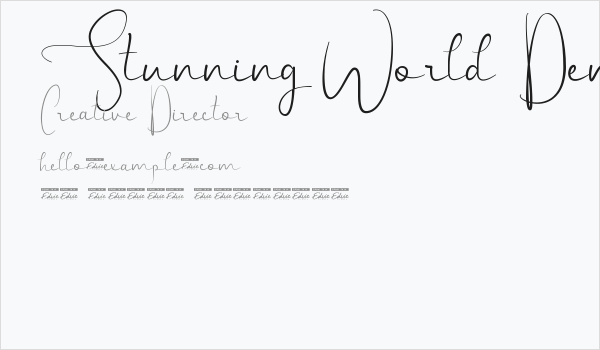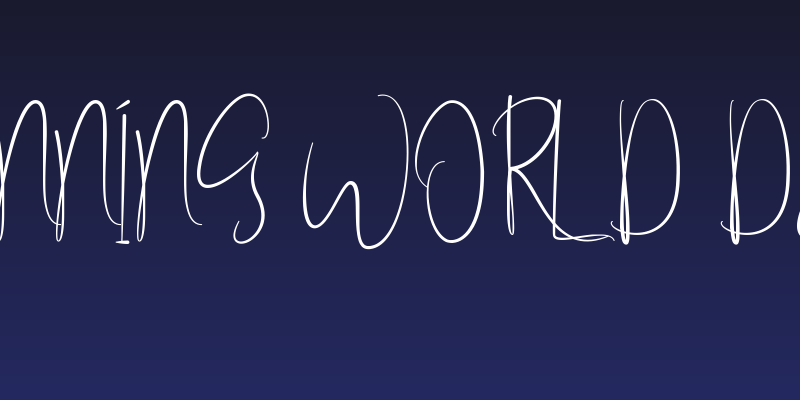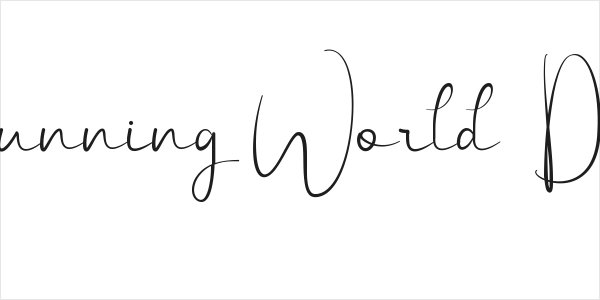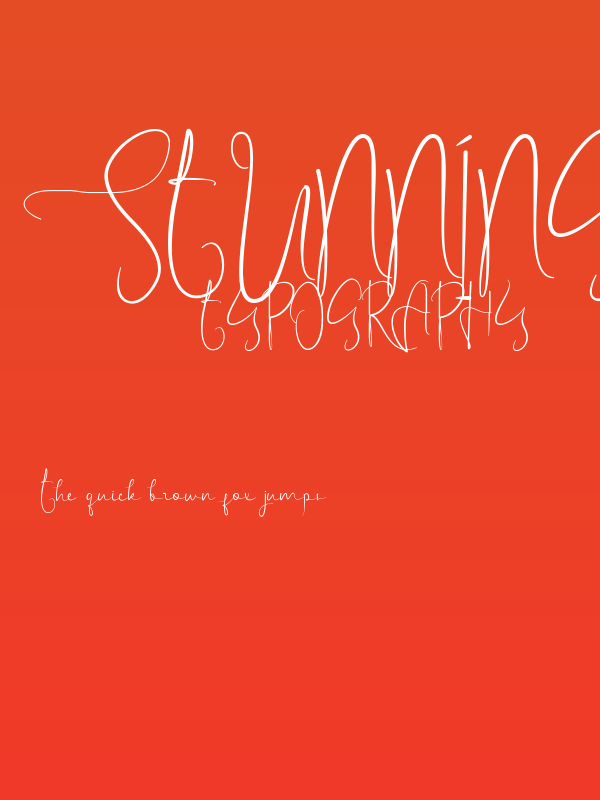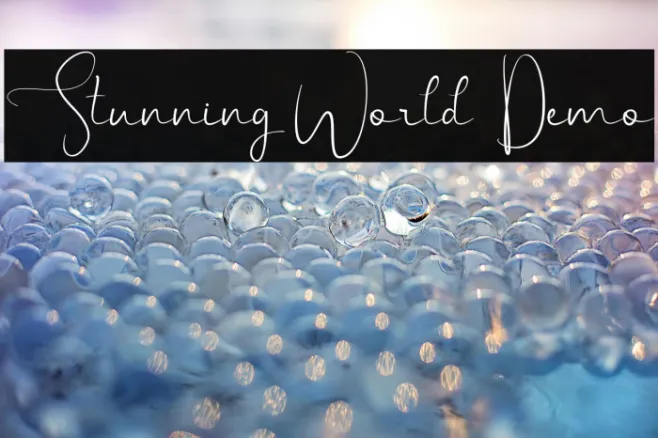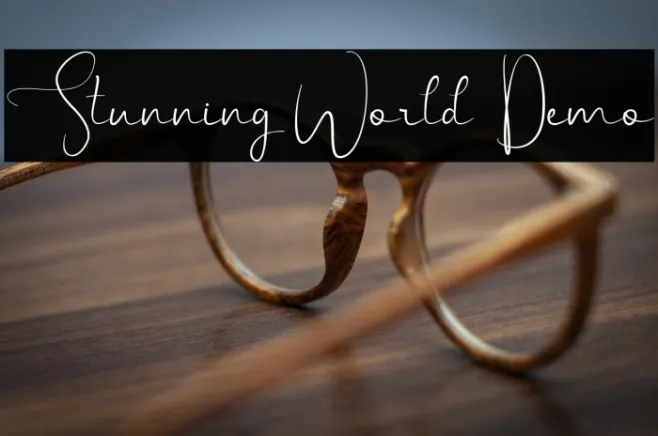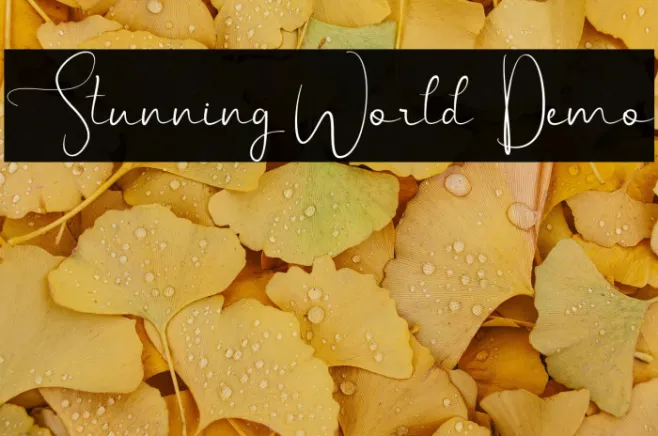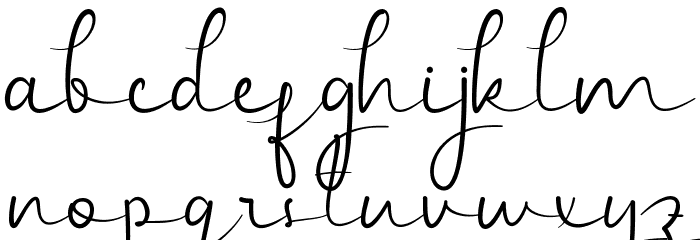
Stunning World Demo Font
Stunning World Demo Description
This font features an elegant and flowing script style, characterized by its thin, delicate strokes and graceful curves. The uppercase letters exhibit a unique blend of traditional calligraphy with a modern twist, while the lowercase letters maintain a consistent fluidity that enhances readability. The font's design is both sophisticated and approachable, making it suitable for a variety of creative applications. Its overall aesthetic is enhanced by the subtle variations in line thickness, which add a touch of dynamism and movement to the text. The special characters are seamlessly integrated, maintaining the font's cohesive and stylish appearance.